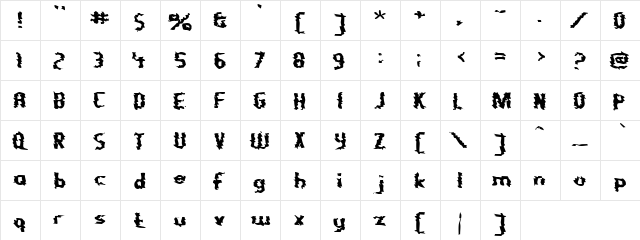
Nightporter Regular
Design Context for Nightporter Typeface
Nightporter is a composed and adaptable typeface that performs quietly and consistently across a wide range of design contexts.
Pro Tip: Use Nightporter in both headline and body roles to test its range before committing to a single application.